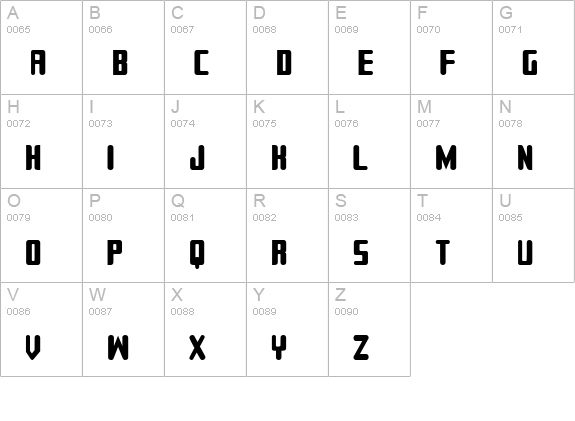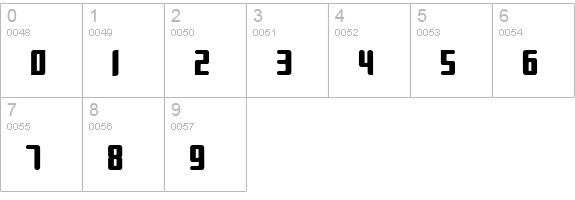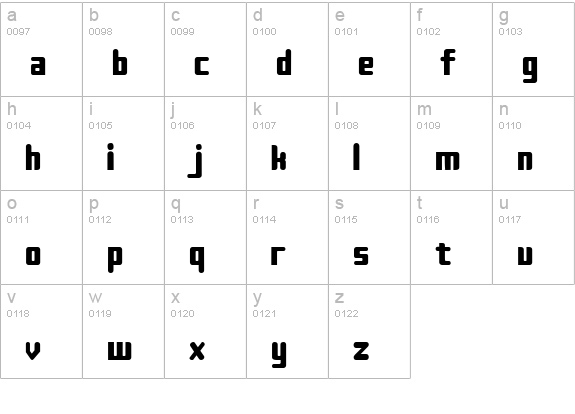
Sujeta Bold Font Details
Sujeta Bold is a strong, high-contrast variant in the Sujeta typeface family \xE2\x80\x94 well suited to headlines, attention-grabbing titles, and strong calls-to-action.
Sujeta Bold is a striking and modern font that exudes confidence and sophistication. With its bold and clean lines, Sujeta Bold is perfect for making a statement in your designs. Whether you're creating eye-catching headlines or sleek branding materials, this font is sure to captivate your audience. The best part? Sujeta Bold is available for free download at FontsMarket.com. This means you can easily access this high-quality font and use it in your projects without any cost. Don't miss out on the opportunity to elevate your designs with Sujeta Bold - download it now and unleash your creativity!